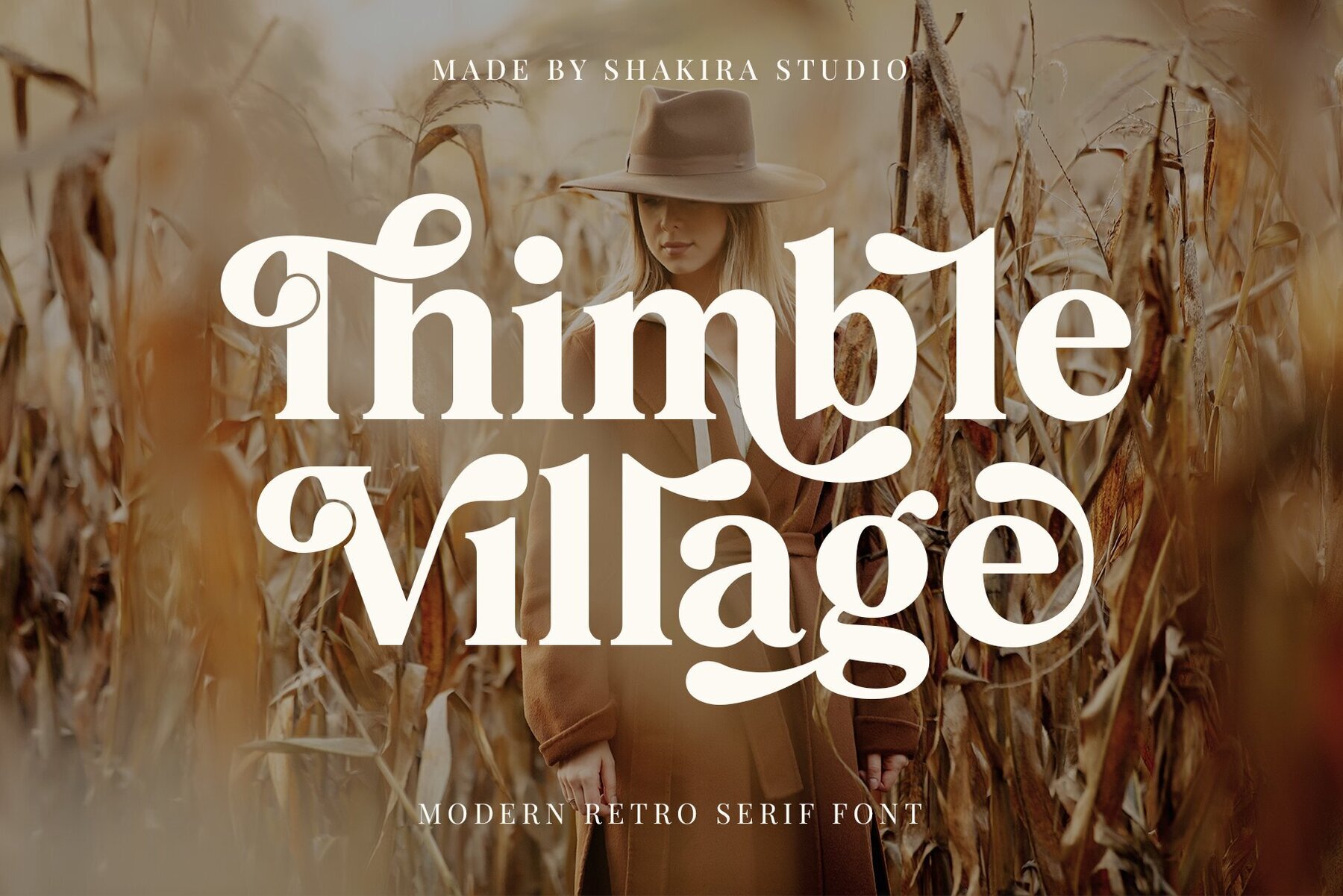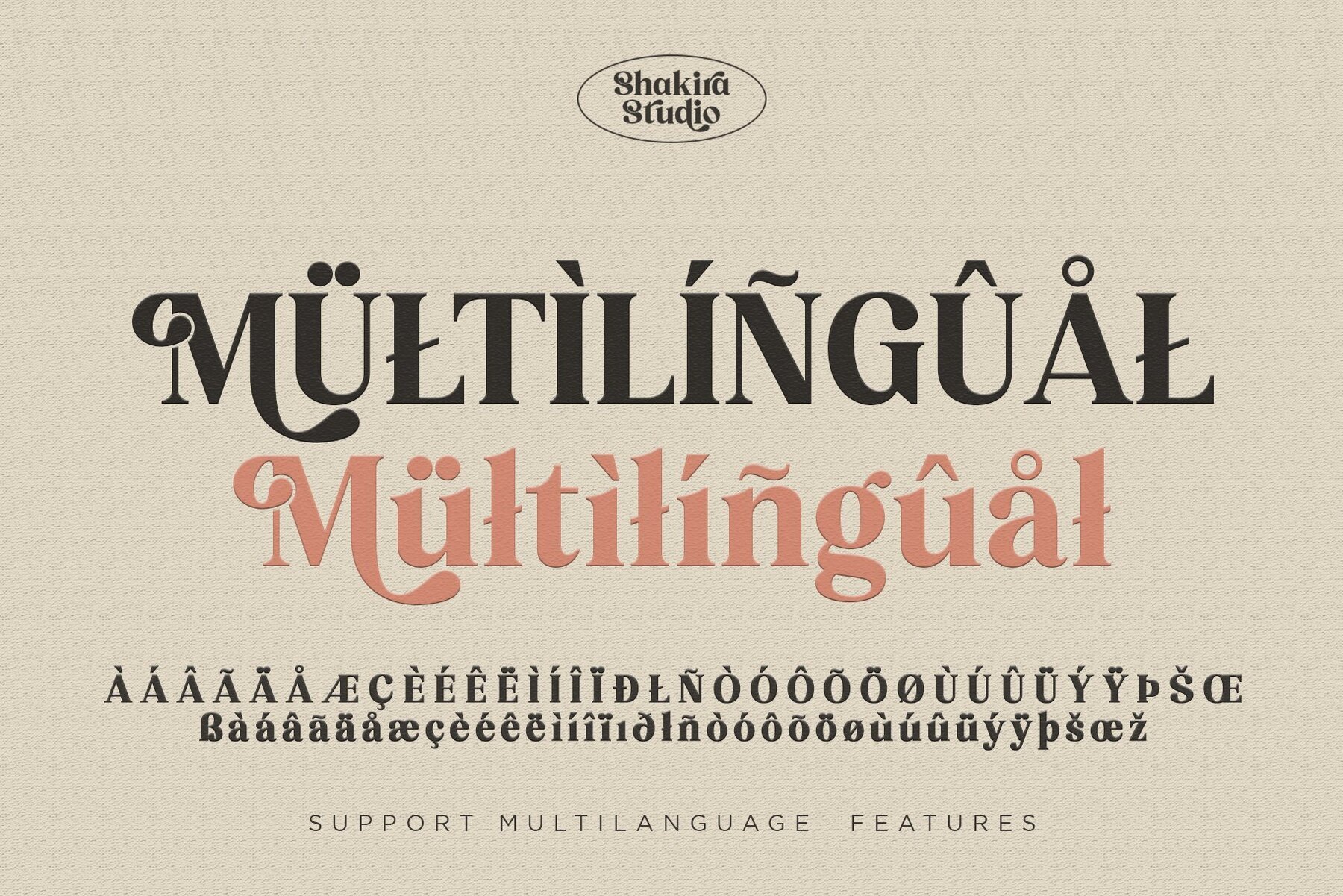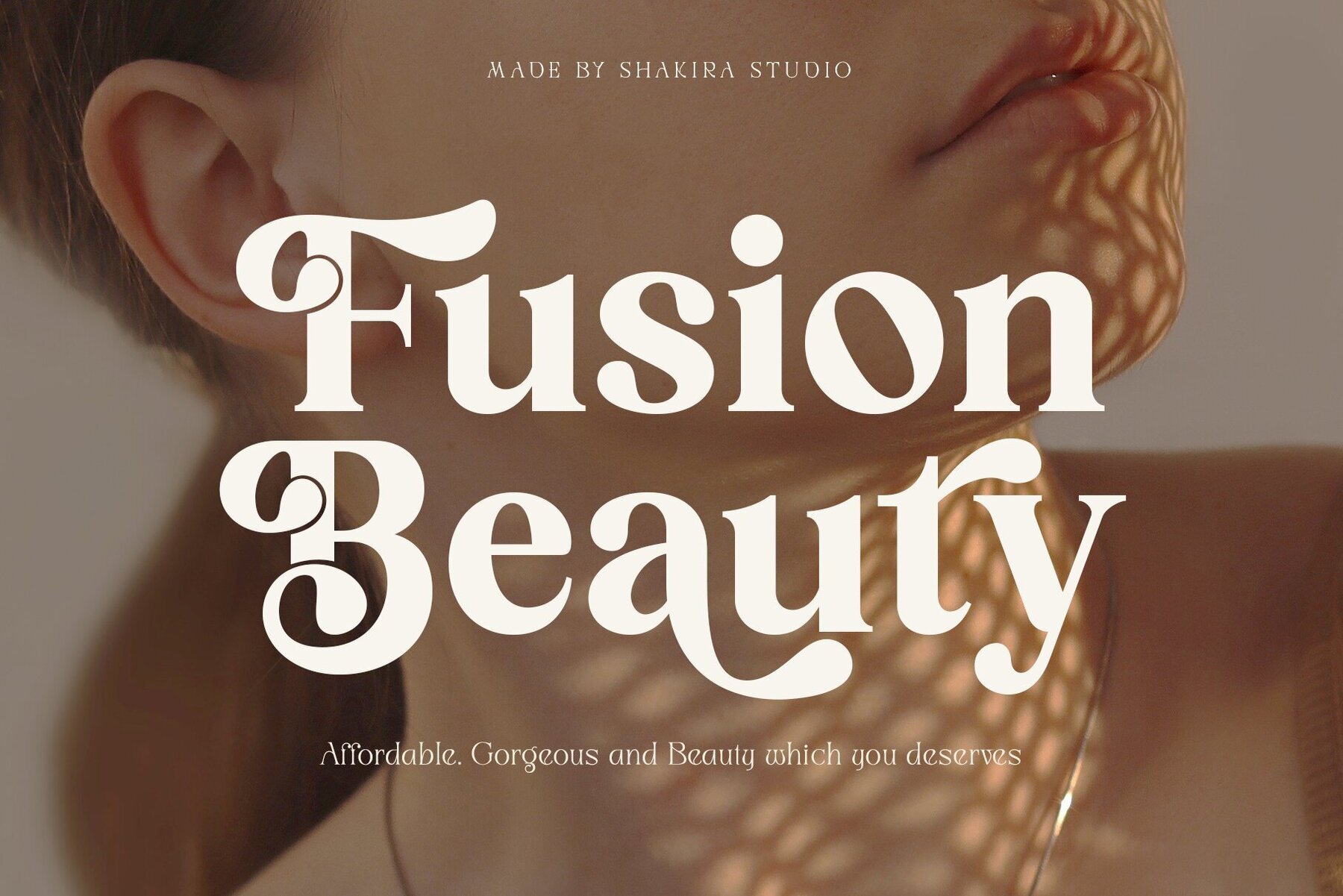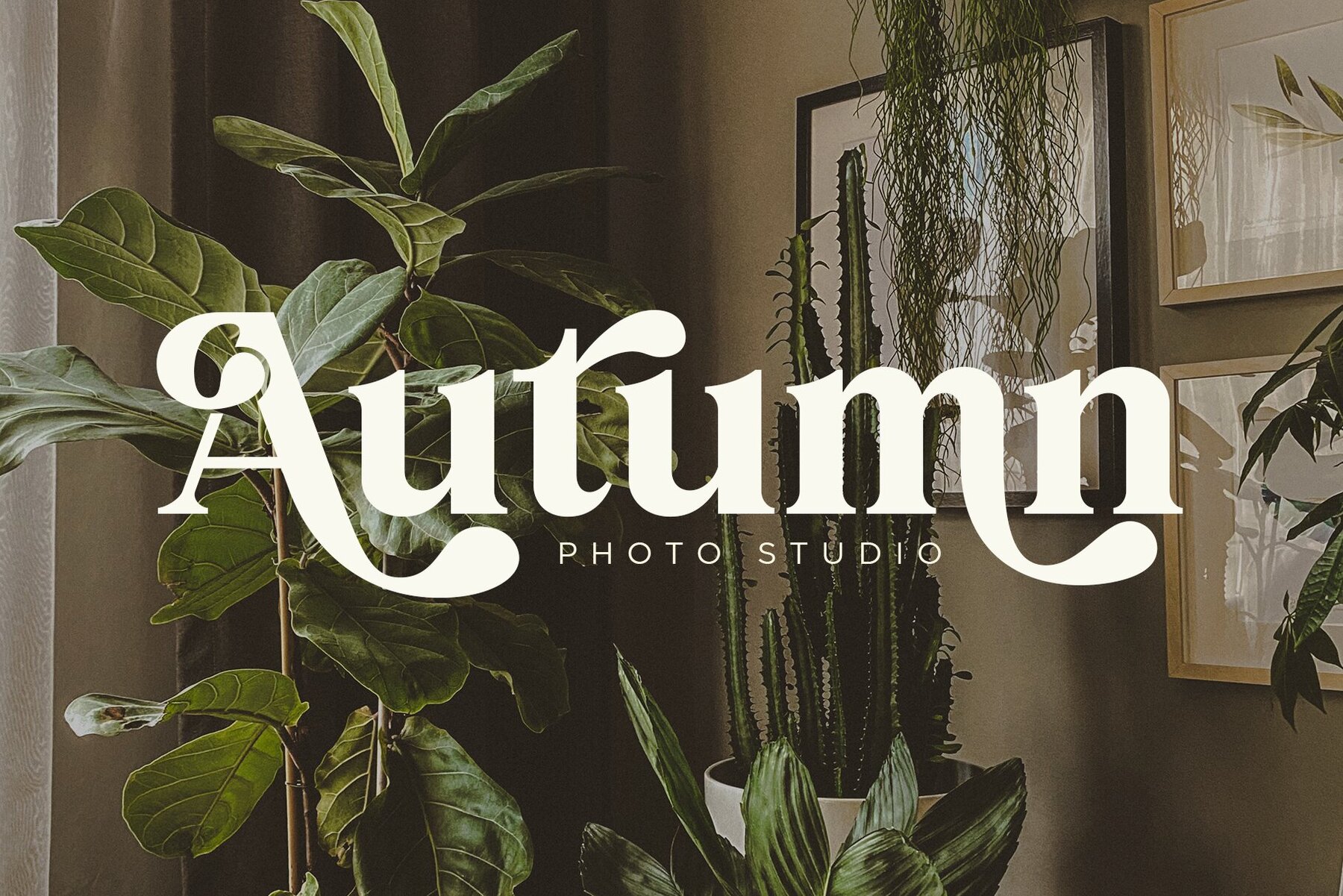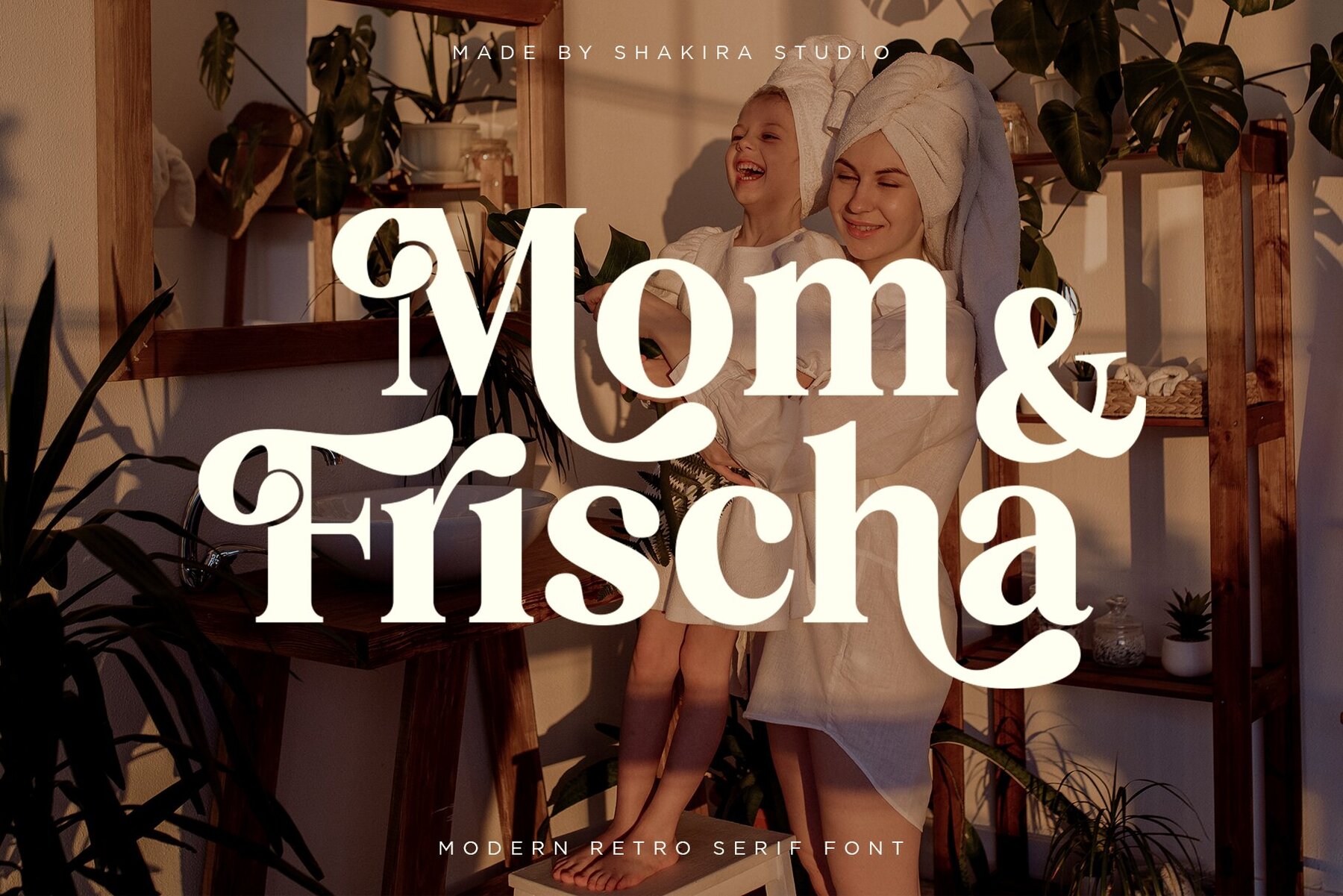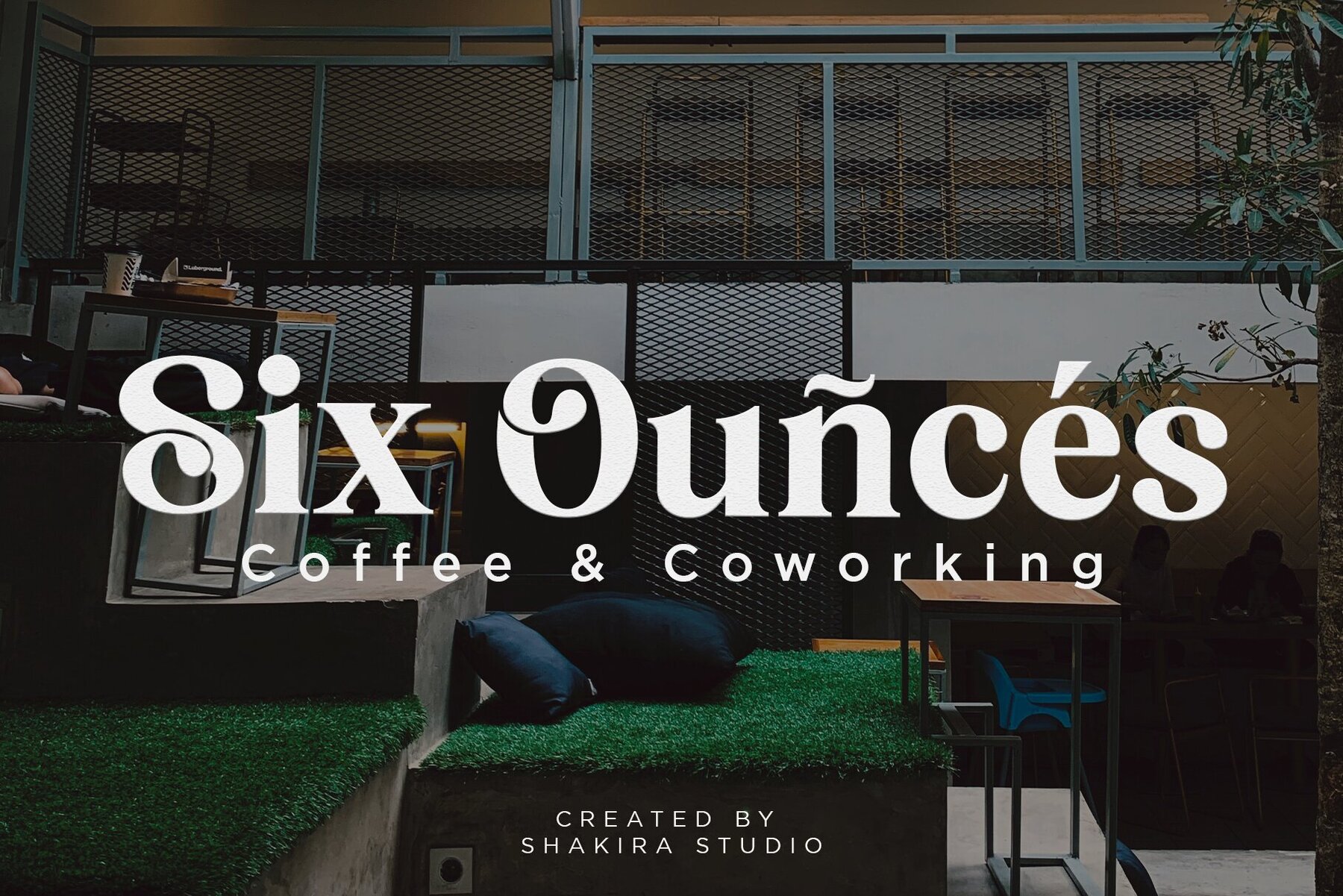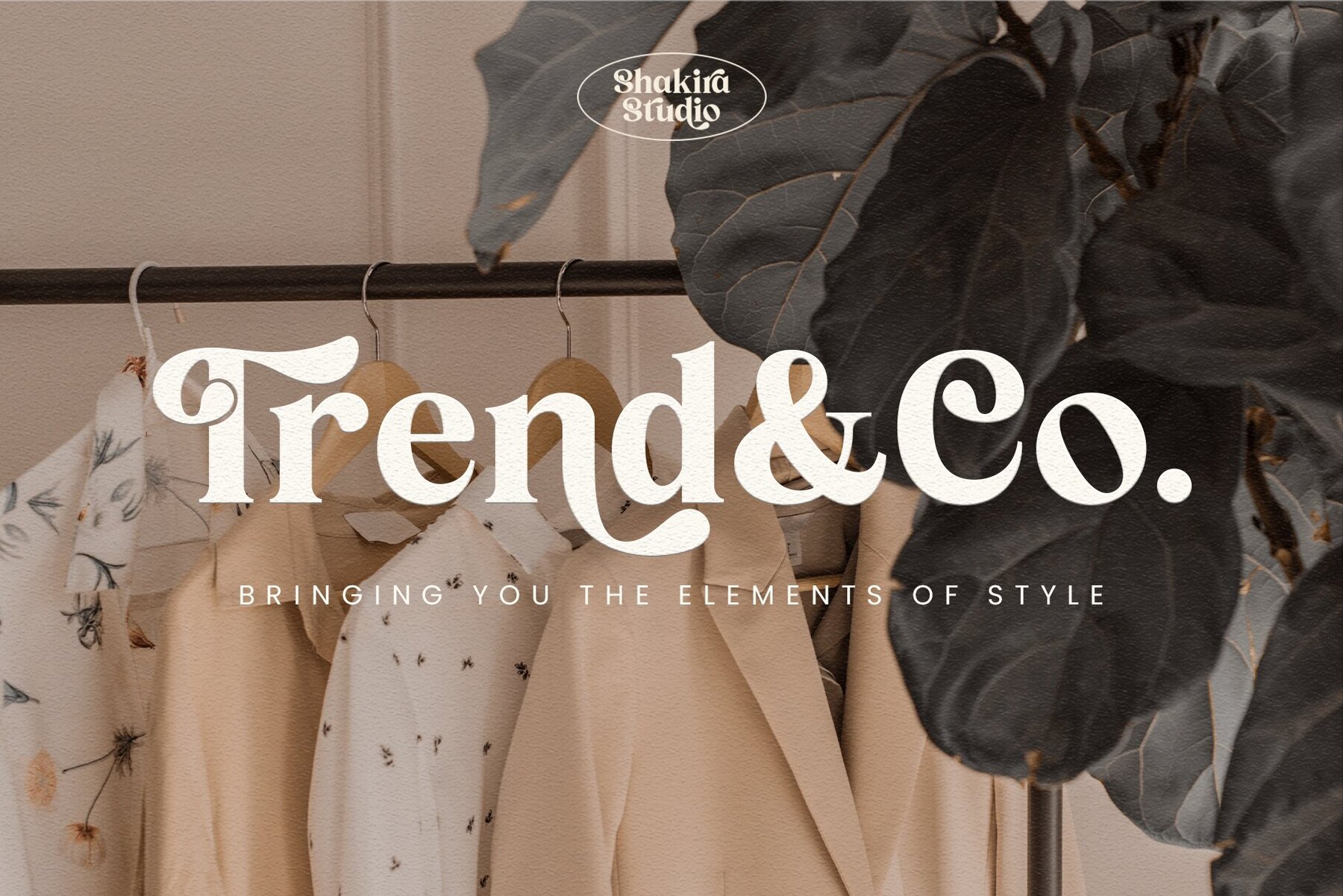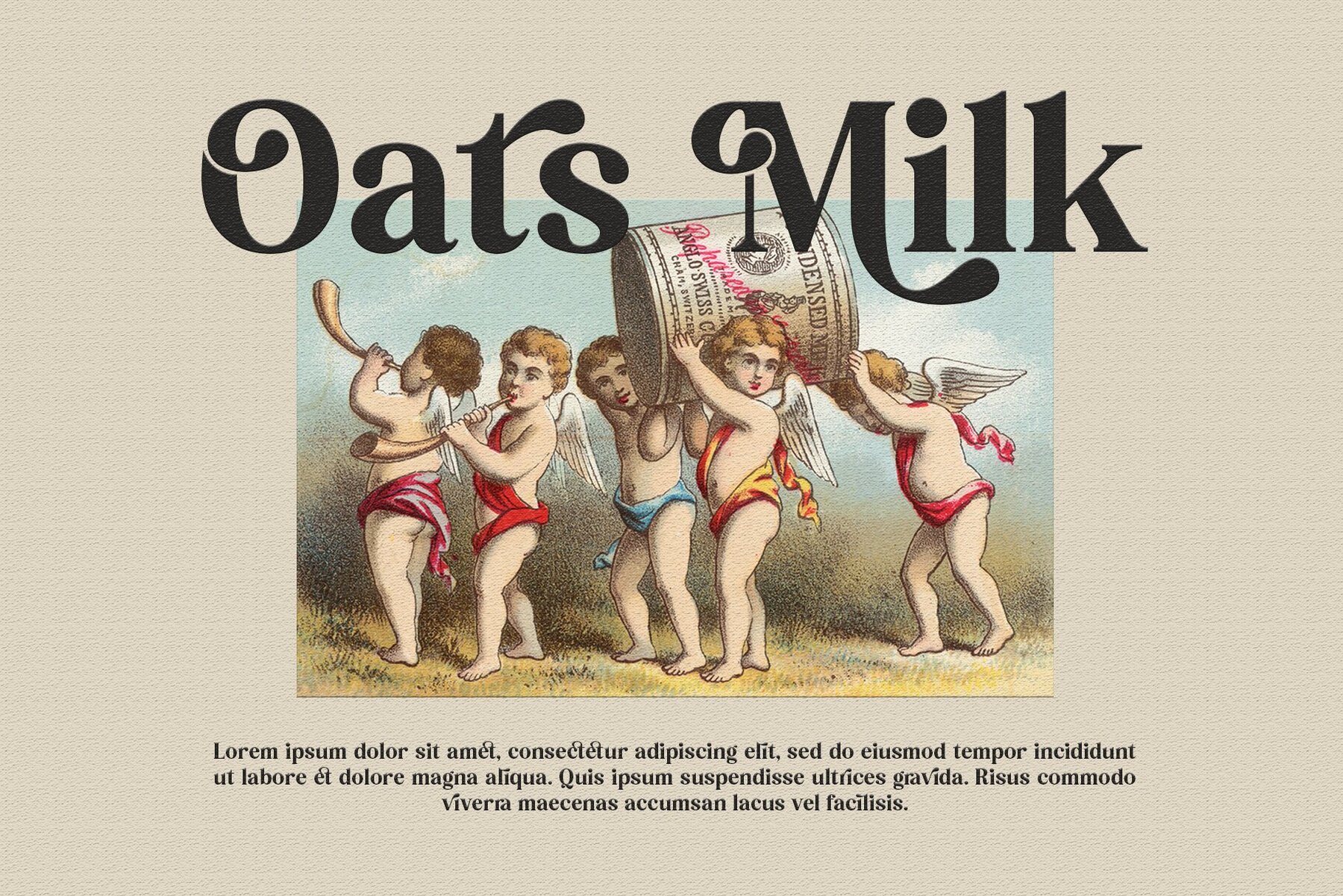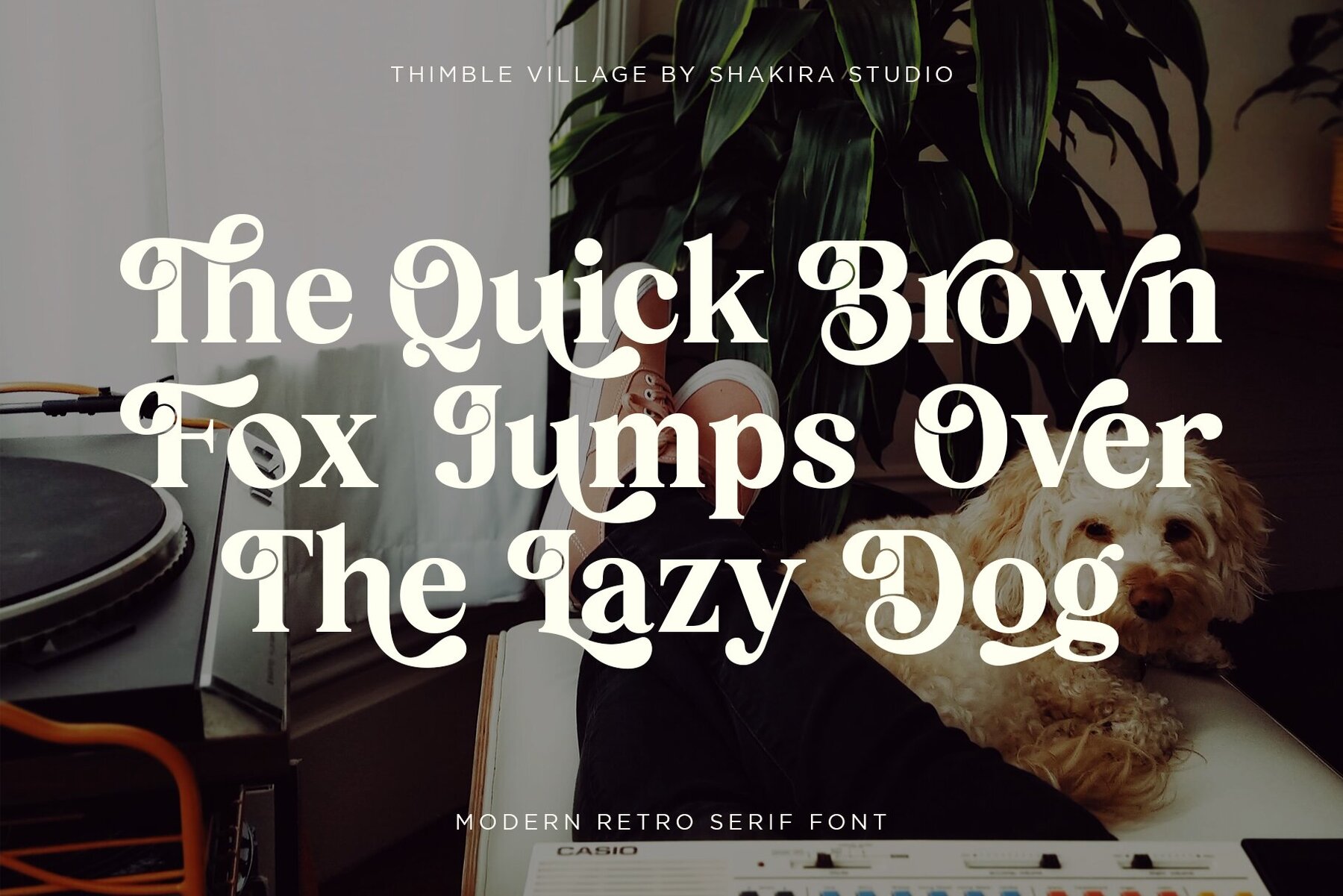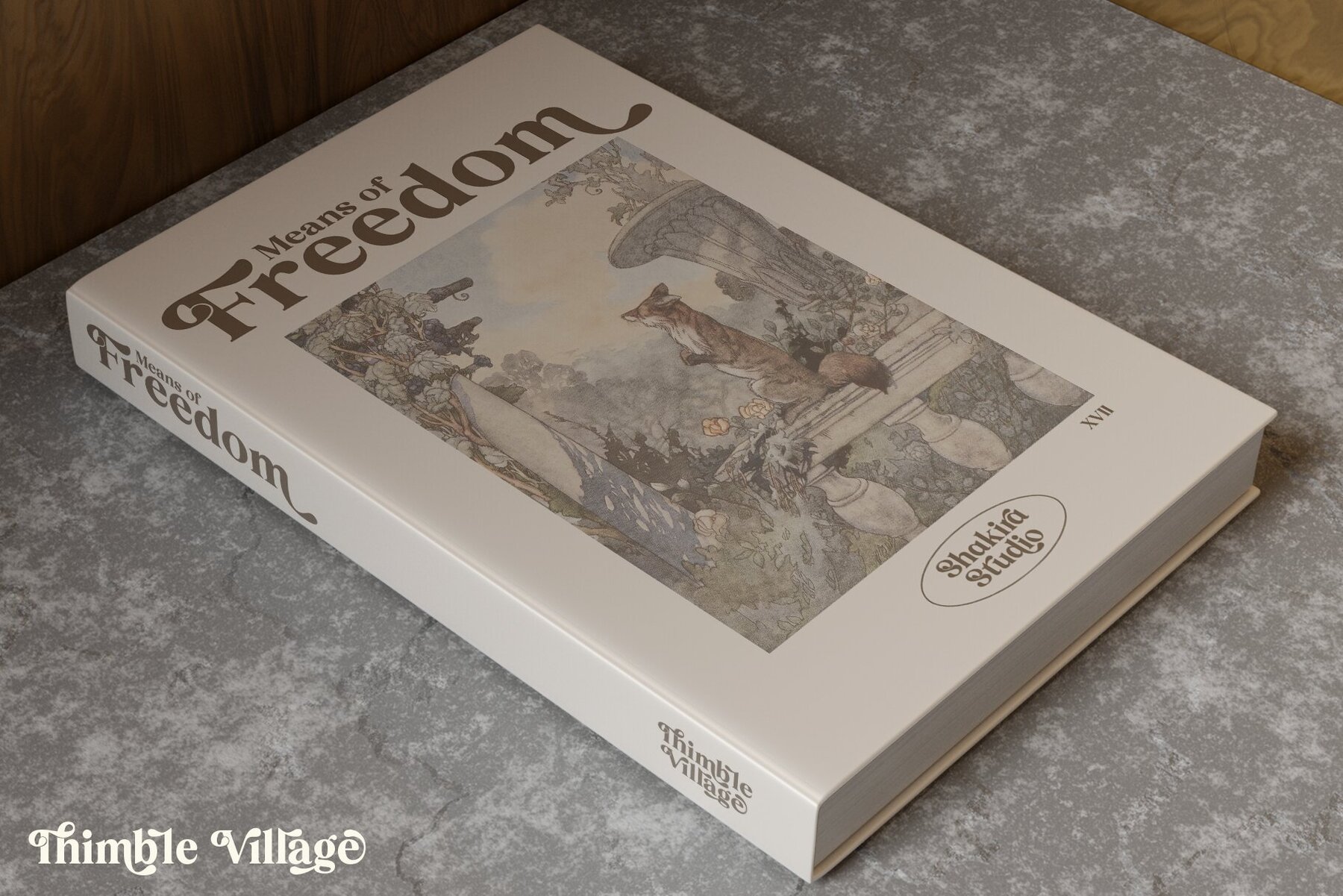
Thimble Village Font
ntroducing Thimble Village, a vintage-inspired serif display font perfect for crafting bold headlines and elegant designs. With its contrasting lines and curved terminals, Thimble Village adds a touch of sophistication to logos, holiday cards, wedding invitations, quotes, advertisements, and more.
Featuring a full set of modern uppercase and lowercase letters, numerals, punctuation, multilingual symbols, and a range of OpenType features like ligatures and alternates, Thimble Village is both versatile and stylish.